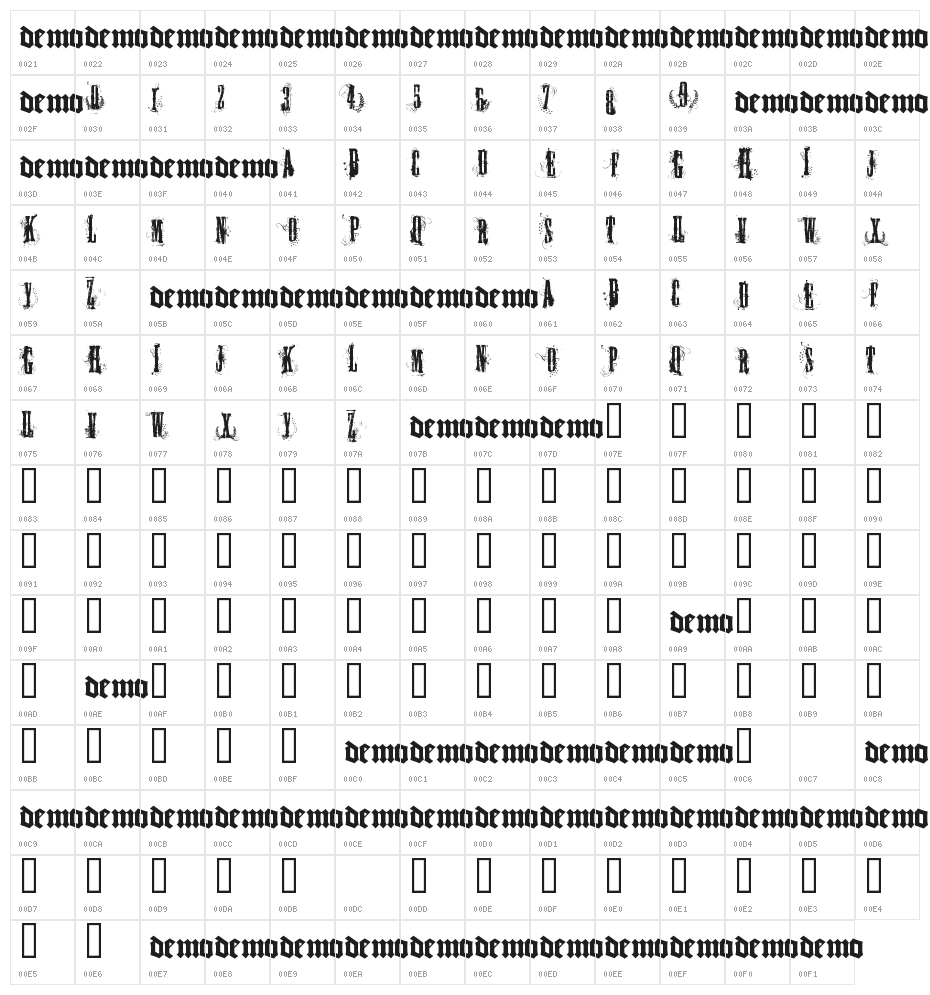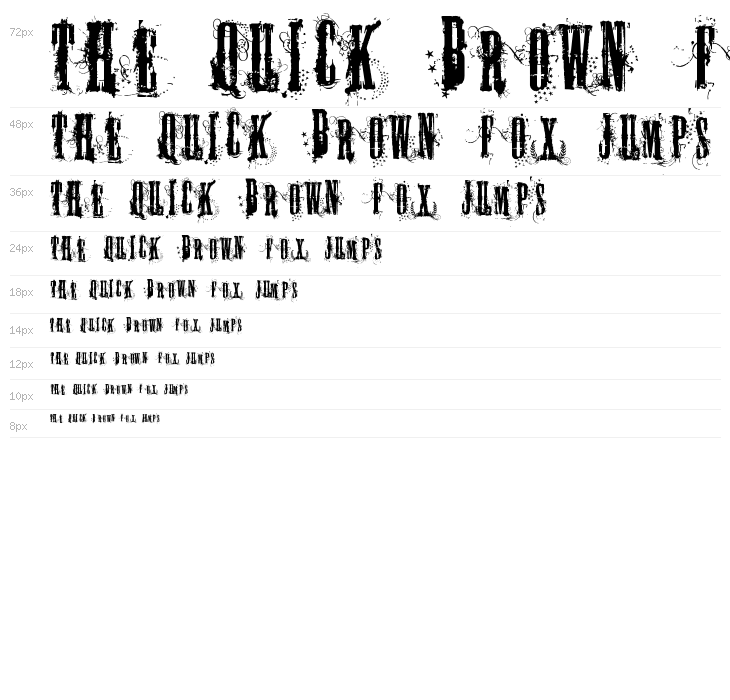
FUCK YOU LAS VEGAS Font
FUCK YOU LAS VEGAS Description
This font is a highly decorative and intricate typeface, characterized by its bold and elaborate design. Each letter is adorned with ornate flourishes and embellishments, giving it a vintage and gothic appearance. The strokes are thick and uneven, with a distressed texture that adds to its dramatic and eye-catching style. The font conveys a sense of mystery and elegance, making it suitable for projects that require a bold and artistic touch. The unique design elements make it stand out, ensuring that any text set in this font will capture attention.
| Overall Style | Vintage, Gothic |
| Proposed Projects | Ideal for posters, album covers, event invitations, or any project needing a dramatic and artistic flair. |